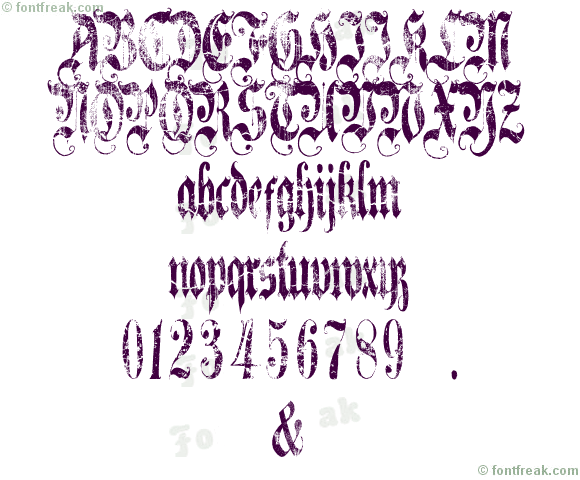
A Gothique Time
About A Gothique Time
A Gothique Time is a captivating display font designed by Fie Clarke, falling within the decorative category. This font exudes an elegant yet slightly gothic flair, making it a distinctive choice for various creative projects. Its visual characteristics include a balanced stroke weight with intricate, decorative serifs and a unique contrast that enhances its dramatic appearance. The spacing is thoughtfully designed, ensuring that the letters flow seamlessly while maintaining readability, even in larger sizes.